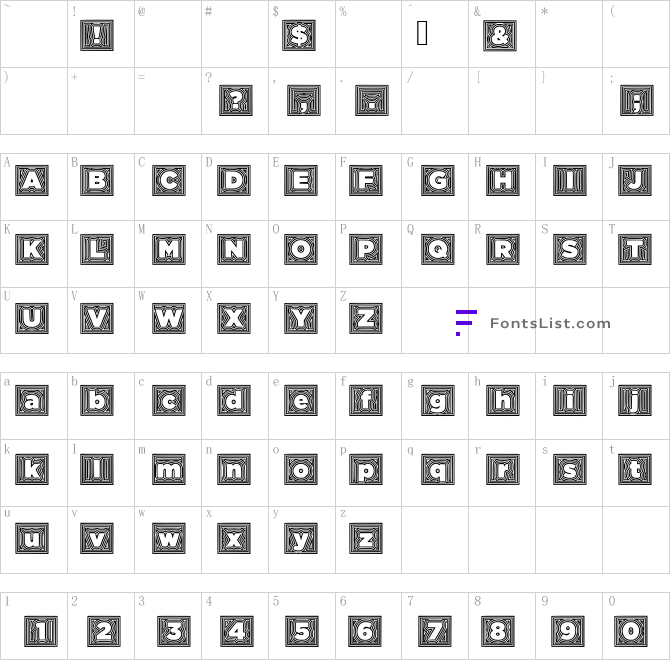
- Font Name:BatmansTrip
BatmansTrip.ttf is a very beautiful artistic font, BatmansTrip.ttf is widely used in the design and printing of various books and pictures,BatmansTrip.ttf has a strong visual impact,BatmansTrip.ttf is a commonly used font in newspapers, magazines and books, and is used in posters, e-commerce Poster design, store design, logo design, font design and other fields.BatmansTrip.